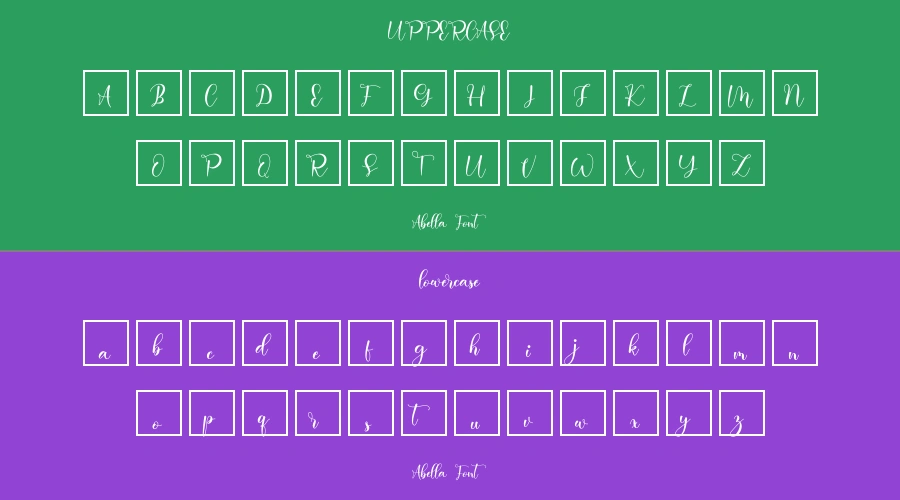
About Abella Font
Designed with precision, Abella Font merges open counters with accuracy in every character. This versatility makes it particularly effective for exhibition design, where precision and cultural relevance directly impact communication quality. Each letterform demonstrates meticulous craftsmanship.
Technical excellence shines through elements like teardrop terminals and language support, enhancing typographic versatility. In image captions settings, Abella Font proves its worth through superior symbol integration. The thoughtful execution of terminal angle and standards alignment ensures professional results.